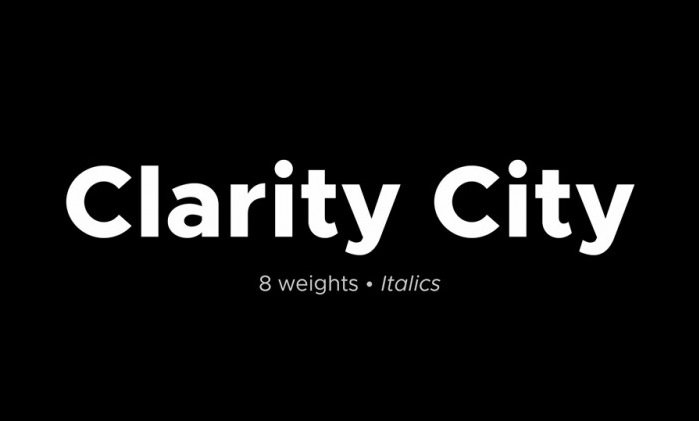
Clarity City Font Family
This is a double weight geometric sans serif font family based upon the work done by Chris Simpson on Metropolis typeface. The type family comes with 9 weights ranging from Thin to Black with matched Italics.
Clarity City is a well-balanced, versatile, modern sans, highly legible as a text font and with a clean, elegant look as a display font at larger sizes.